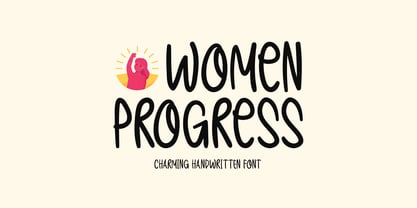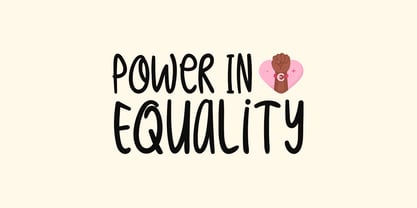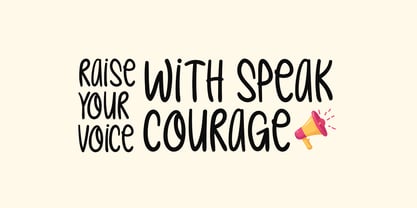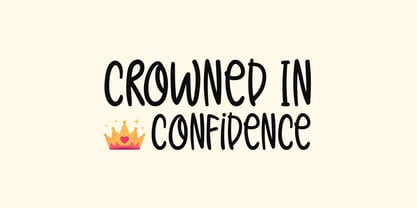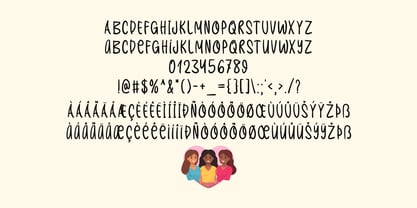
Women Progress
La famille de polices Women Progress a été conçue par Md. Sohail Bhuiyan et publiée par Seemly Fonts. Women Progress contient 1 styles. En savoir plus sur cette famille
Women Progress is a charming handwritten font designed to express strength, elegance, and positivity. With its smooth strokes and natural flow, it brings a warm and inspiring personality to any creative project. Perfect for stationery, logos, t-shirts, posters, website headers, flyers, music covers, and print materials, Women Progress adds a graceful yet empowering touch that makes every message feel meaningful and uplifting.